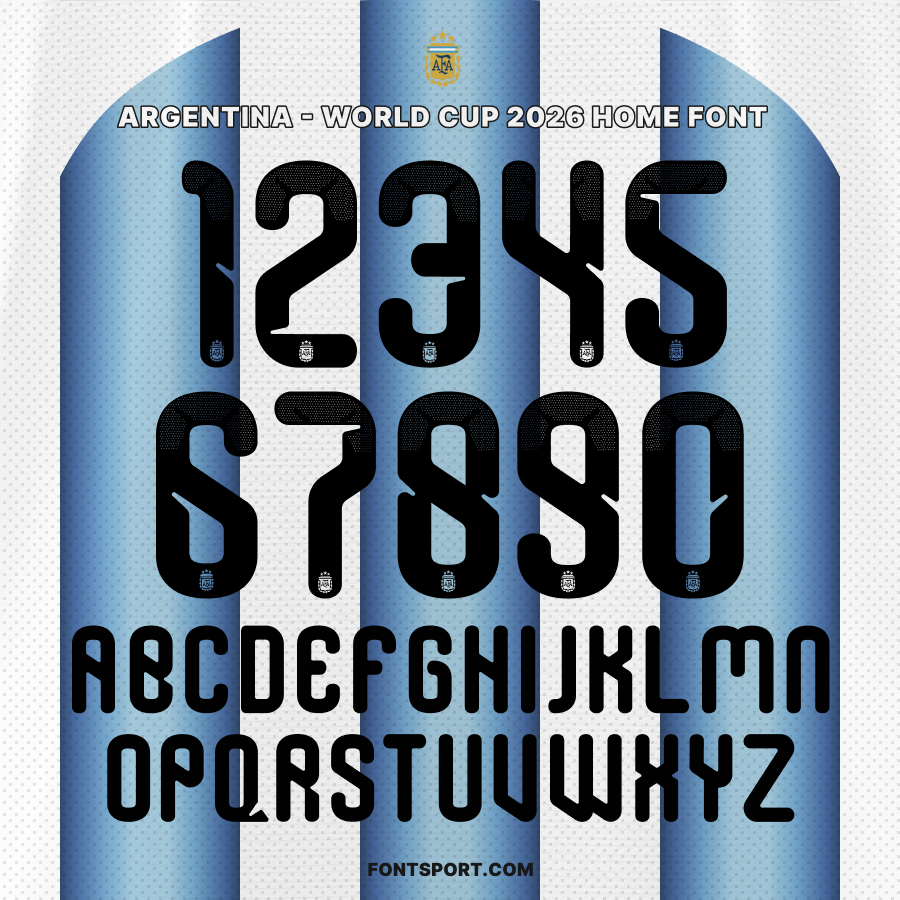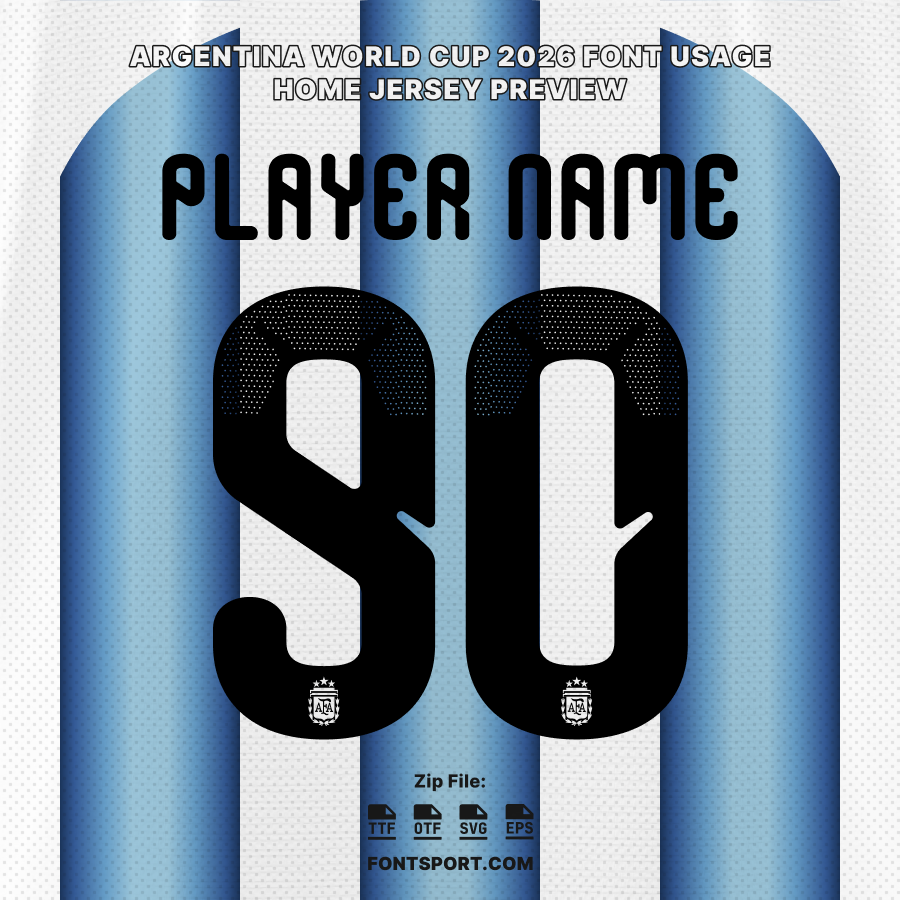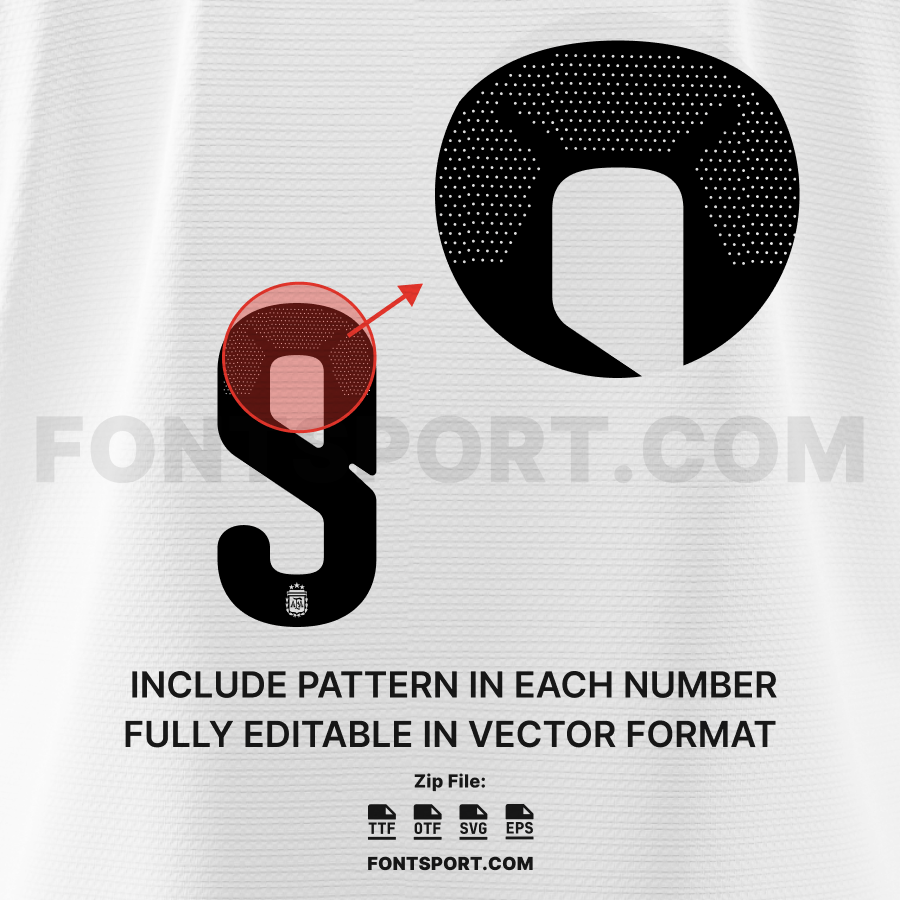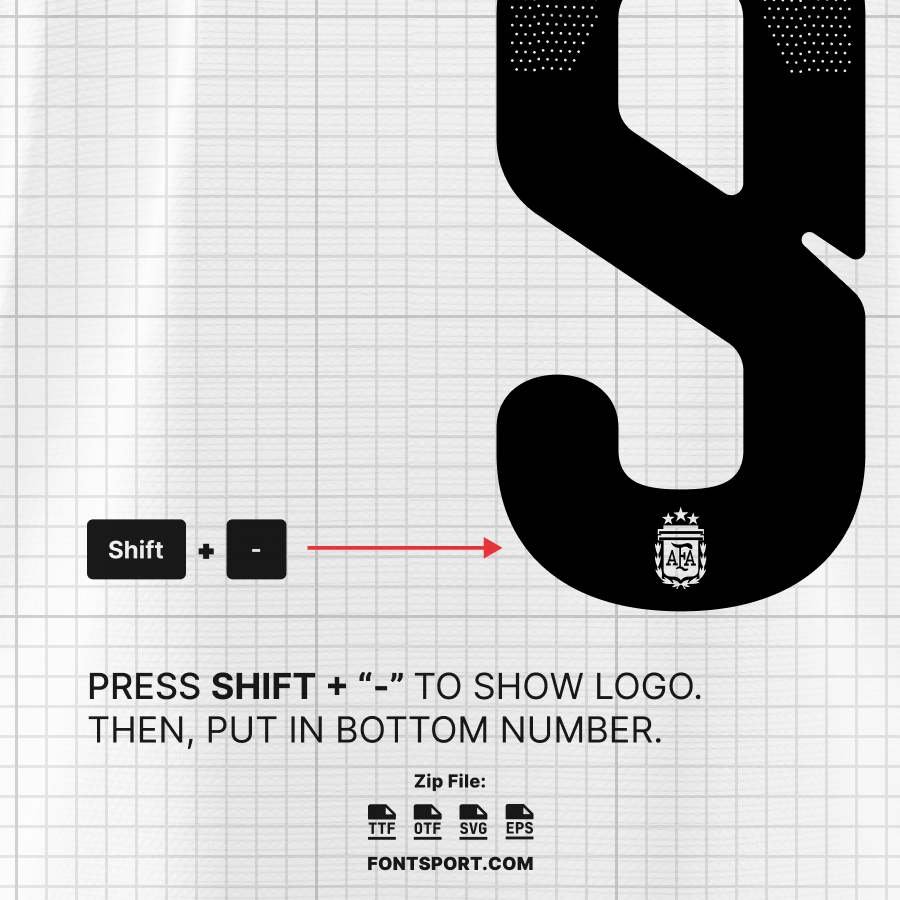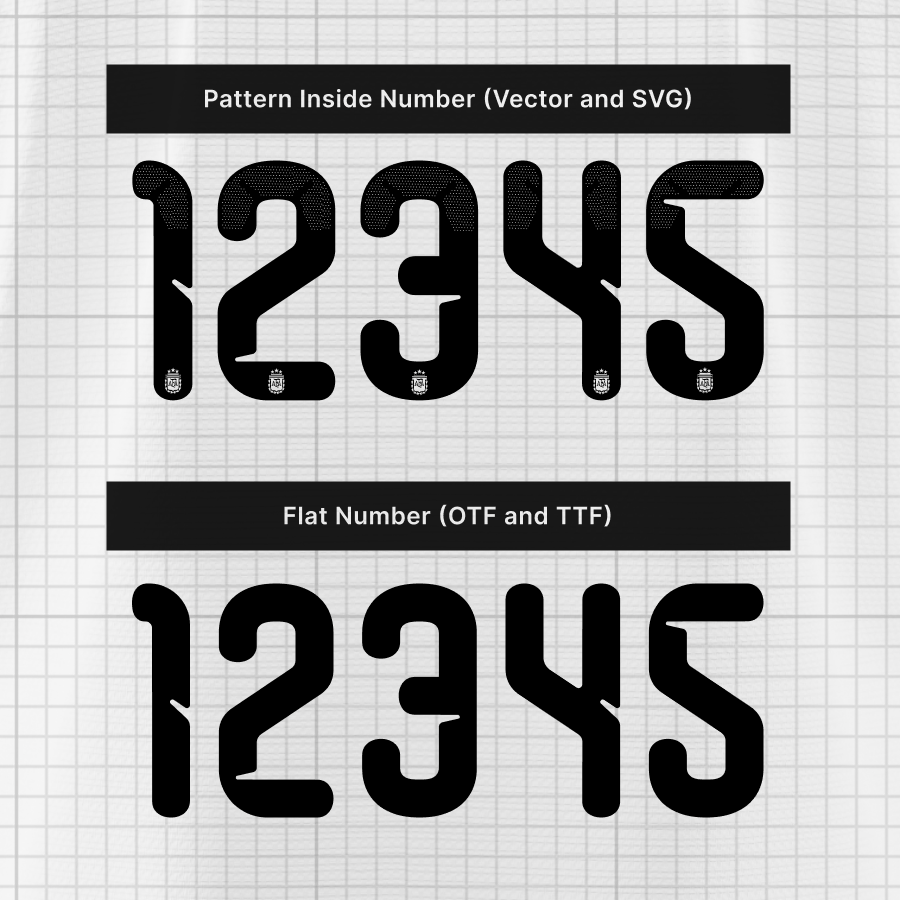
Argentina World Cup Home 2026 Font Kit – The Albiceleste Typeface
Celebrate Argentina’s world-champion spirit with the Argentina World Cup Home 2026 Font Kit, inspired by the typography featured on the national team’s home jerseys for the FIFA World Cup 2026. Designed to capture the elegance and strength of La Albiceleste, this font blends modern minimalism with Argentina’s iconic blue-and-white heritage.
With its clean geometry, subtle curvature, and high readability, this typeface is perfect for sportswear, digital design, and fan art that channels the energy of Argentina’s quest for glory in North America.
• Full uppercase A–Z & 0–9 numerals in authentic 2026 Argentina style
• Special Argentina crest glyph for instant team identity
• Latin alphabet with multilingual diacritics support
• 🏆 Includes Argentina’s crest logo glyph for authentic presentation
This fan-inspired font kit reflects that same heritage—powerful yet elegant—perfect for anyone creating Argentina-themed content, apparel mockups, or tribute art ahead of the next global tournament.
Argentina World Cup 2026 Home Font – Full Alphabet and Number Design with AFA Crest